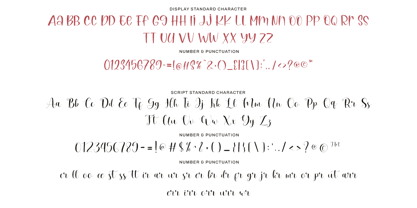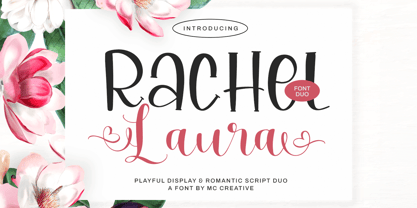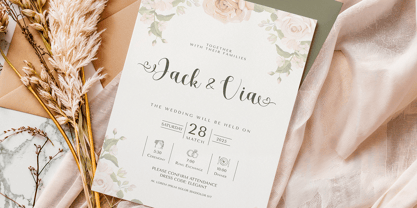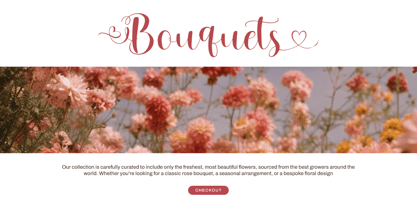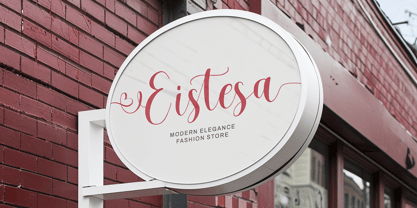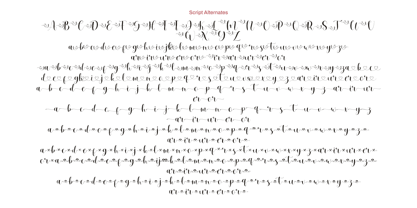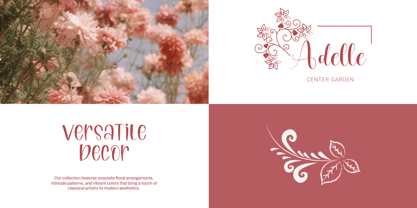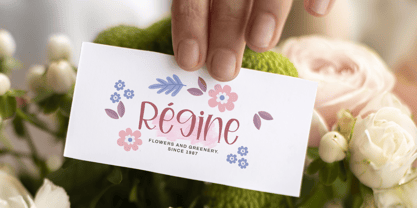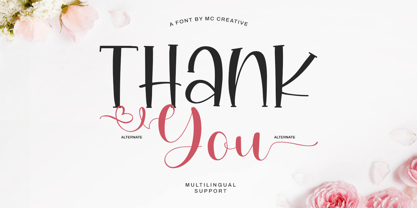
Rachel Laura
by MC Creative
The Rachel Laura Font Family was designed by Mohamad Candirah and published by MC Creative. Rachel Laura contains 2 styles and family package options. More about this family
Rachel Laura – Playful Display & Romantic Script Font Duo
Introducing Rachel Laura, a charming font duo that beautifully combines a quirky display typeface with a romantic modern script. Crafted with love and creativity, Rachel Laura brings a fresh personality to your design projects – perfect for branding, logos, invitations, packaging, social media graphics, and more.
The Display Font is bold, playful, and full of character. Its unique structure and stylish curves give your headlines a modern and friendly appeal. On the other hand, the Script Font offers a graceful handwritten touch with lots of alternates and ligatures, making every word feel custom and elegant.
• Rachel Laura Display (All Caps + Punctuation & Numerals)
• Rachel Laura Script (Uppercase, Lowercase, Numbers, Punctuation, and Extensive Ligatures & Alternates)
• Multilingual Support
This font duo is ideal for wedding designs, feminine branding, magazine layouts, quote designs, or any project that needs a beautiful handwritten and display font combination.
Let Rachel Laura elevate your typography game with its artistic flair and versatility.
Designers: Mohamad Candirah
Foundry: MC Creative